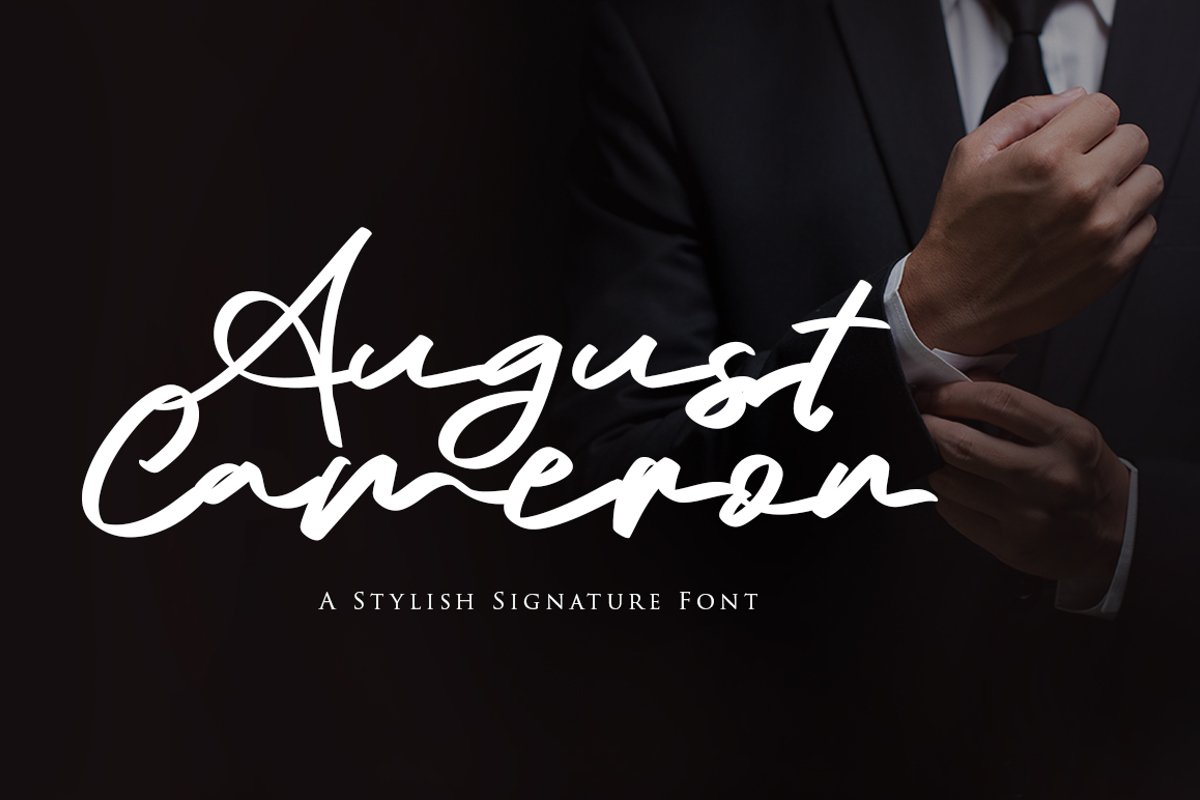
August Cameron
AugustCameron
August Cameron font is a simple and classy font, comes with opentype features. We keep this font looks elegant, classy, readable, stylish, catchy and easy to use. August Cameron Font is the great choice for watermark on photography, signature or signature logo design, quotes, album cover, business card, and many other design project. From business cards to photo watermarks, August Cameron here to elevate your work to the highest level.
A style that we choose was the natural look hand made, unique identity.